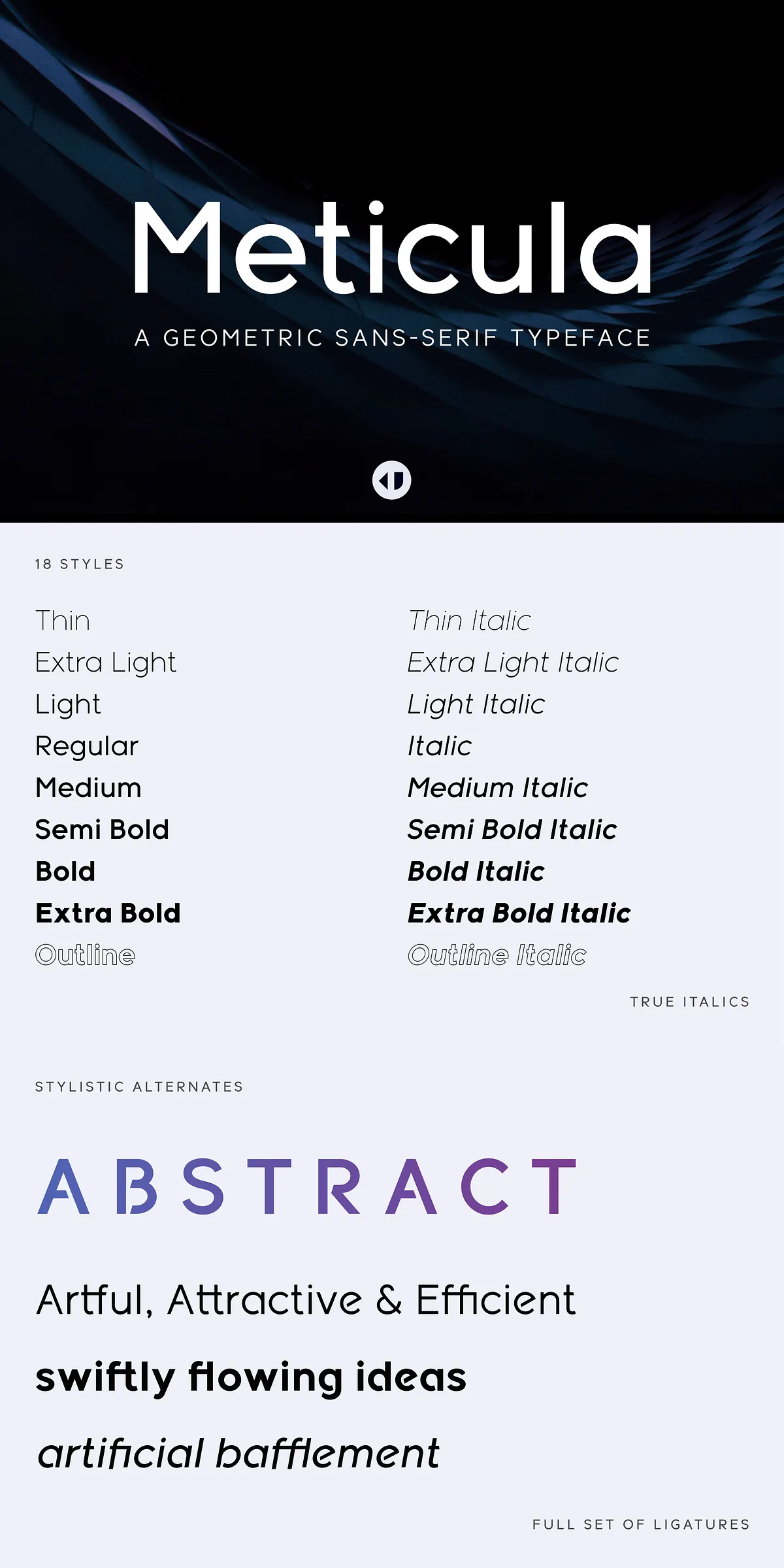
Meticula – Sans-serif Typeface
Unlock the future of clean, confident typography with Meticula, a meticulously engineered sans-serif font family of 18 distinct weights and styles. Designed for the modern creator, Meticula blends geometric precision with minimalist soul, delivering a typeface system built for versatility, clarity, and impact. Whether you’re shaping a high-end brand identity, designing a sleek website, or crafting editorial layouts, Meticula gives you the tools to elevate every word with intention and style.
Geometric Foundations, Infinite Possibilities
Meticula is rooted in the strict elegance of geometric shapes—perfect circles, clean lines, and balanced spacing—yet it never sacrifices human-centered readability. Each character is hand-crafted with an obsessive eye for detail, resulting in a font family that feels both technically advanced and intuitively natural. The result? A typography system that’s as reliable for body text as it is powerful for headlines, logos, or UI navigation.
• 18 Unique Styles: From ultra-light to ultra-black, and from narrow to extended, Meticula offers unprecedented flexibility. Every weight transitions smoothly, enabling seamless hierarchy and visual rhythm across projects.
• Design Philosophy: Minimalism with Purpose: Meticula strips away all unnecessary ornamentation, focusing on form, function, and clarity. Its simplicity isn’t empty—it’s intentional, allowing your content to take center stage.
• Modern Aesthetic, Timeless Appeal: Designed with today’s design trends in mind, Meticula fits perfectly in contemporary branding, tech startups, fashion labels, architecture portfolios, and luxury editorial projects.
Engineered for Excellence: Technical & Creative Features
While Meticula shines in its visual elegance, it’s equally impressive in its technical depth. This is not a font built for aesthetics alone—it’s built for real-world design workflows.
• Professional OpenType Features: Access advanced typography through ligatures, contextual alternates, stylistic sets, and small caps—perfect for sophisticated typographic layouts.
• Extended Language Support: Multilingual compatibility across Latin, Cyrillic, Greek, and extended language scripts, making it ideal for global brands and international publications.
• Variable Font Capabilities (Pro Version): The Pro edition supports variable font technology, allowing real-time weight, width, and slant adjustments—no need to switch files.
Where Meticula Transforms Design
• Brand Identity & Logo Design: Use its clean geometry and strong contrast to create iconic, memorable logos that stand the test of time.
• Web & App UI Design: Perfect for navigation menus, buttons, headings, and microcopy. Its legibility at small sizes ensures usability across all devices.
• Editorial & Publication Design: Create structured yet elegant layouts for magazines, books, and newsletters with effortless typographic hierarchy.
• Product Packaging & Print Media: Its high-impact look makes it ideal for labels, brochures, business cards, and posters where clarity and modernity are key.
• Advertising & Campaigns: Deliver powerful messages in limited space—Meticula’s bold presence ensures your campaign cuts through visual noise.
In a world of cluttered fonts and over-designed type, Meticula stands out not for loudness, but for precision. It says more by saying less—every stroke has purpose, every space tells a story. This is not just a font; it’s a design discipline.